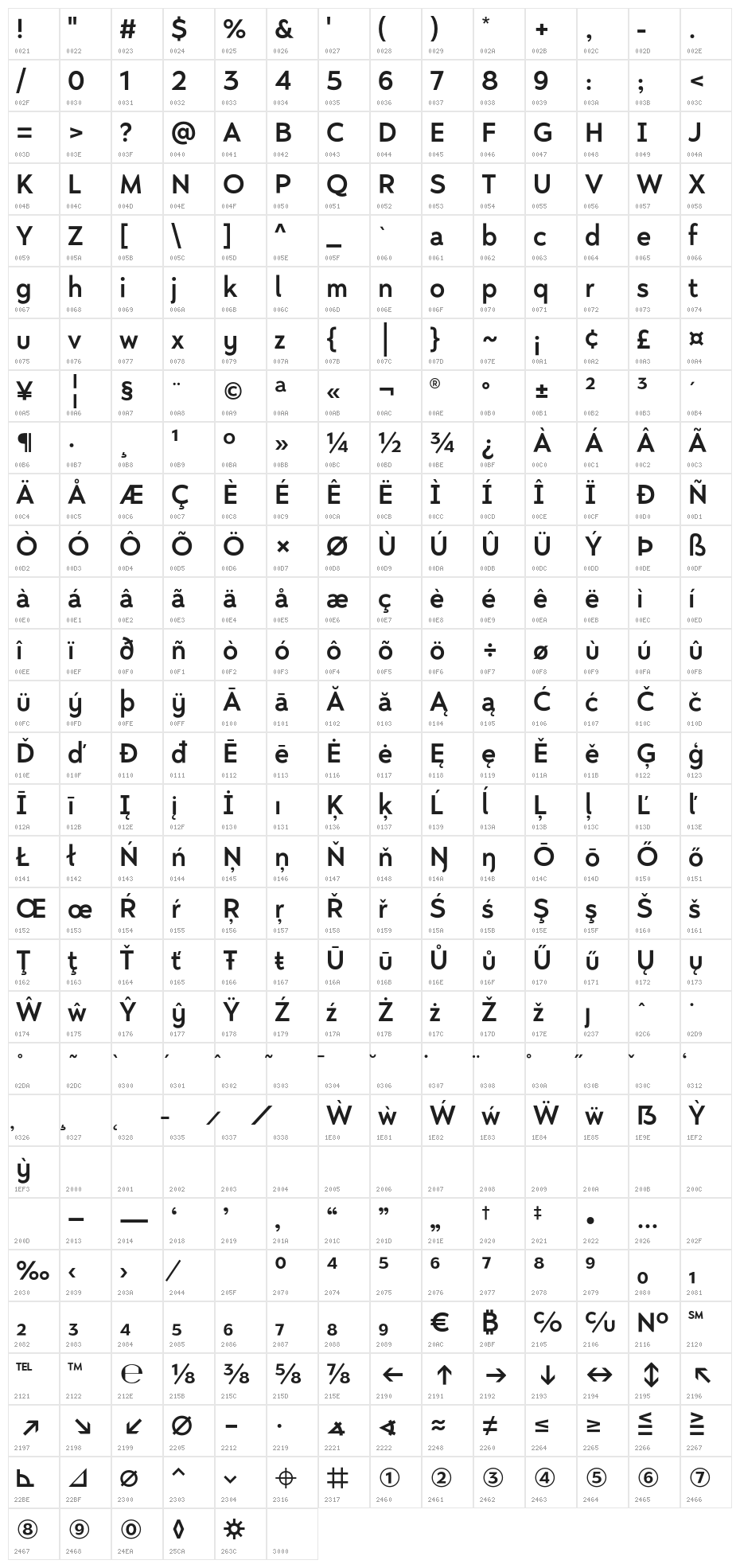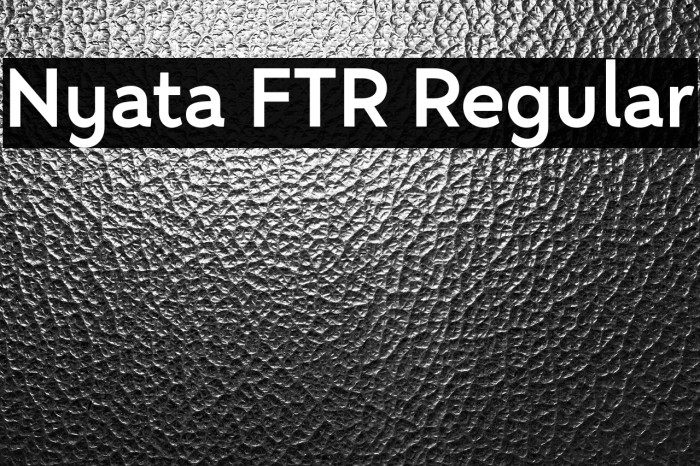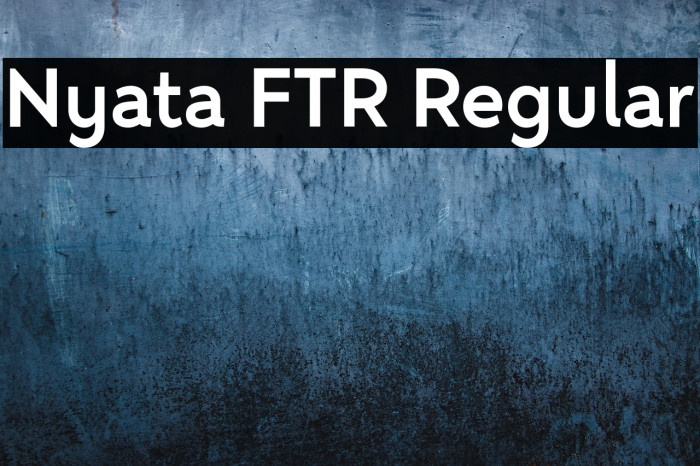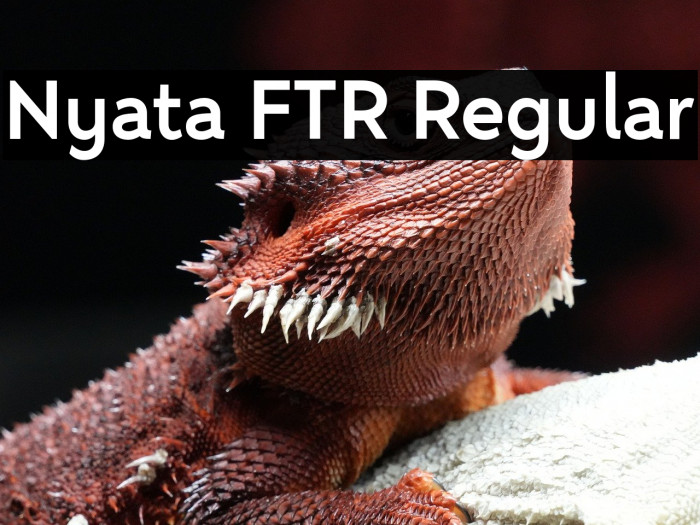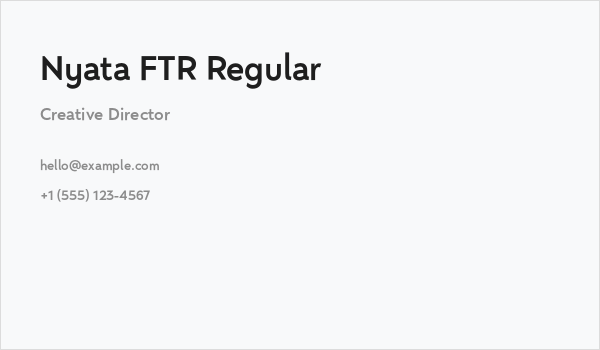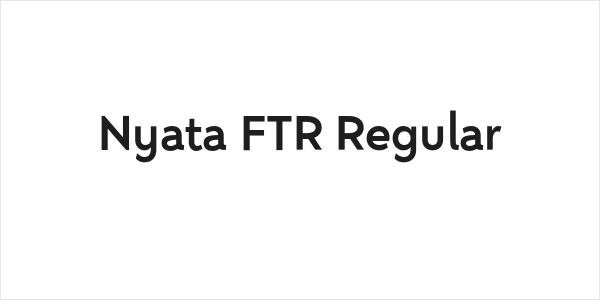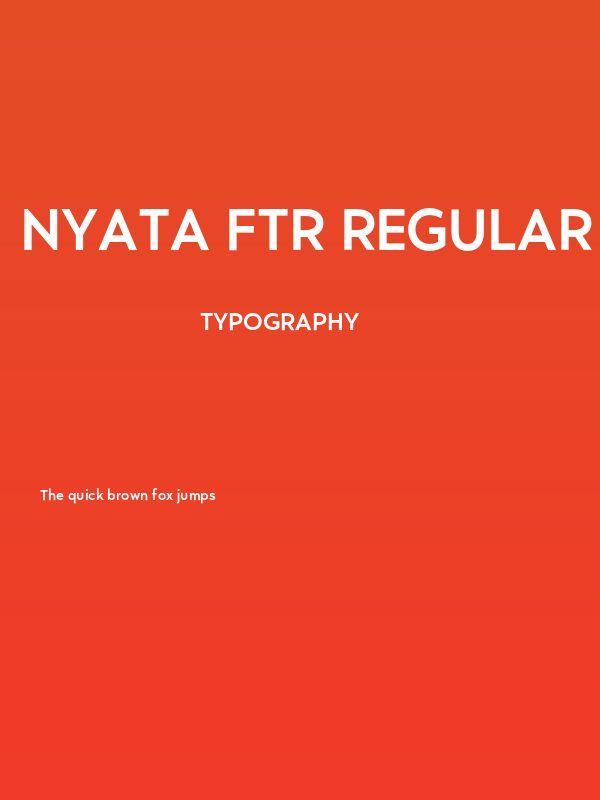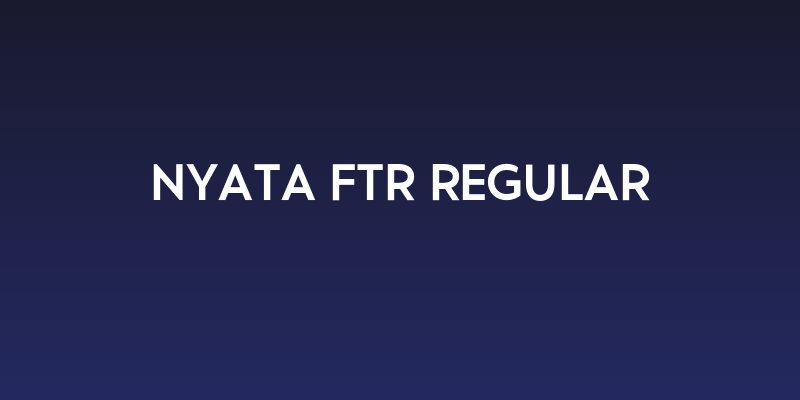
Nyata FTR Regular Font
Nyata FTR Regular Description
This font features a clean and modern sans-serif design, characterized by its geometric shapes and uniform stroke widths. The uppercase letters are bold and assertive, while the lowercase letters maintain a consistent and harmonious appearance. The numerals are clear and easily distinguishable, making them suitable for various applications. The special characters are well-integrated, ensuring a cohesive look across all text elements. This typeface is versatile, offering a contemporary aesthetic that is both professional and approachable.